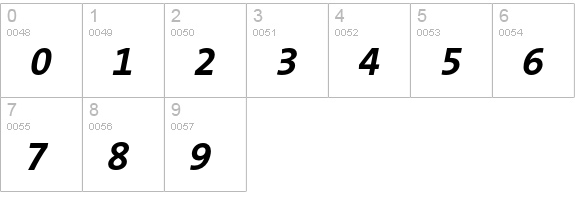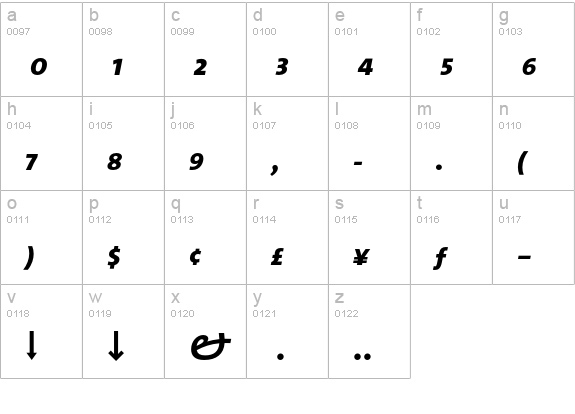
TheMix Bold Expert Italic Font Details
TheMix Bold Expert Italic is a strong, high-contrast, italic variant in the TheMix typeface family \xE2\x80\x94 well suited to headlines, attention-grabbing titles, and strong calls-to-action.
TheMix Bold Expert Italic is an exquisite font that effortlessly combines boldness and elegance. Its expertly crafted design exudes a sense of confidence and sophistication, making it the perfect choice for projects that require a touch of refined style. This font features a subtle italic slant that adds a subtle twist to the traditional bold typeface. The combination of the bold weight and the slight inclination creates a harmonious balance that catches the eye and adds a unique flair to any design. With its versatility and timeless appeal, TheMix Bold Expert Italic is suitable for a wide range of applications. Whether you need to create attention-grabbing headlines, sleek logos, or stylish editorial layouts, this font has got you covered. One of the best things about TheMix Bold Expert Italic is that it is available for free download at FontsMarket.com. This means that you can instantly enhance your designs without any financial constraints. The accessibility of this font allows designers, creatives, and enthusiasts alike to explore and experiment with this exquisite typeface. So, if you're looking to add a touch of boldness and elegance to your designs, look no further than TheMix Bold Expert Italic. Download it for free at FontsMarket.com and let your creativity soar to new heights.